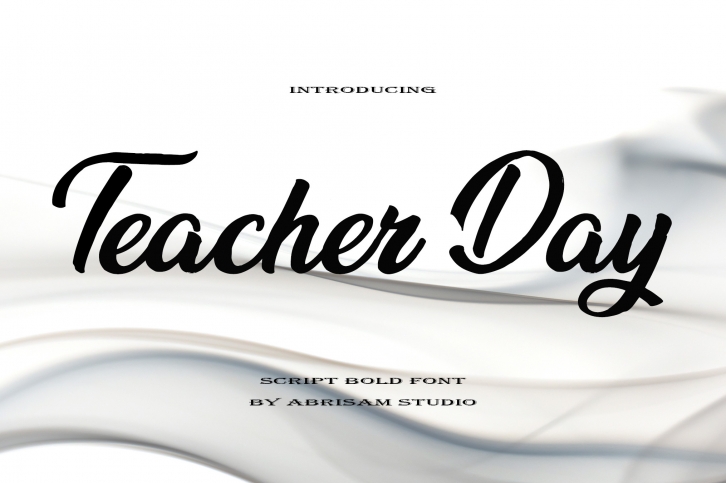
Teacher Day is a lovely and cursive handwritten font. This versatile script font has a wide spectrum of applications ranging from greeting cards to headlines and is guaranteed to add a romantic feel to your next project.